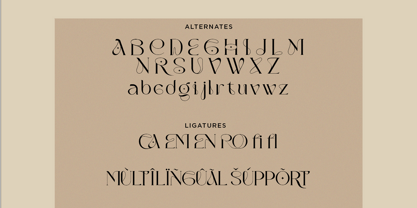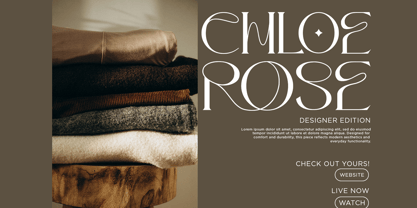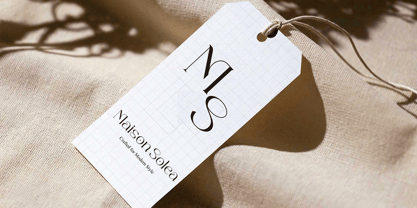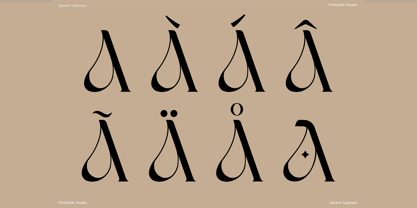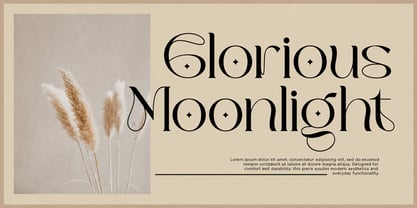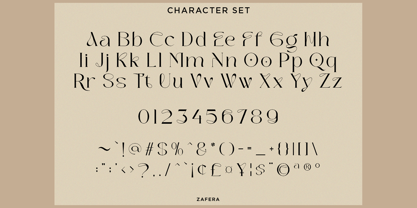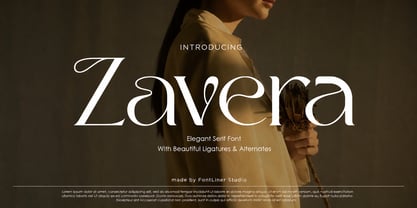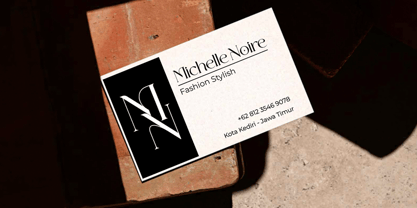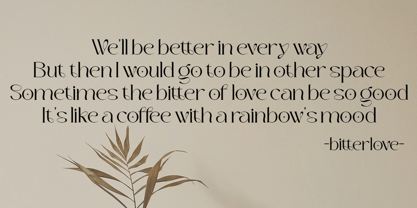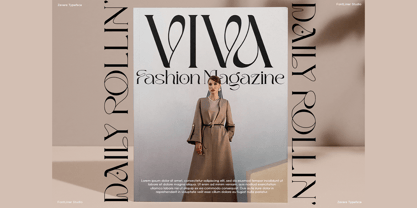
Zavera
von Font Liner
Die Schriftfamilie Zavera wurde von Ghina Luthfiarieska entworfen und von Font Liner veröffentlicht. Zavera enthält 1 Stile und Familienpaketoptionen. Mehr über diese Familie
Zavera is an elegant serif font designed to elevate luxury branding with timeless sophistication and graceful style. Featuring refined letterforms, exquisite ligatures, and beautifully crafted alternates, Zavera creates a premium visual identity that feels both modern and classic. Every character is carefully designed to deliver effortless elegance across high-end creative projects.
Perfect for fashion brands, luxury logos, editorial layouts, wedding invitations, cosmetic packaging, jewelry branding, boutique businesses, magazines, social media, and premium product packaging, Zavera brings a distinctive and memorable presence to every design. Its stylish curves and sophisticated details make it an excellent choice for designers seeking a serif font that stands out with elegance and personality.
Whether you're creating visual identities, luxury marketing materials, book covers, restaurant branding, beauty campaigns, or stylish typography, Zavera provides the versatility and premium aesthetic needed to transform your ideas into stunning designs. The font includes uppercase, lowercase, punctuation, numerals, multilingual support, ligatures, and alternate characters for endless creative possibilities.
• Regular and Italic Style
• Stylistic Alternates
• Stylistic Ligatures
• Uppercase and Lowercase
• Number, Symbol, and Punctuation
• Multi Language Support